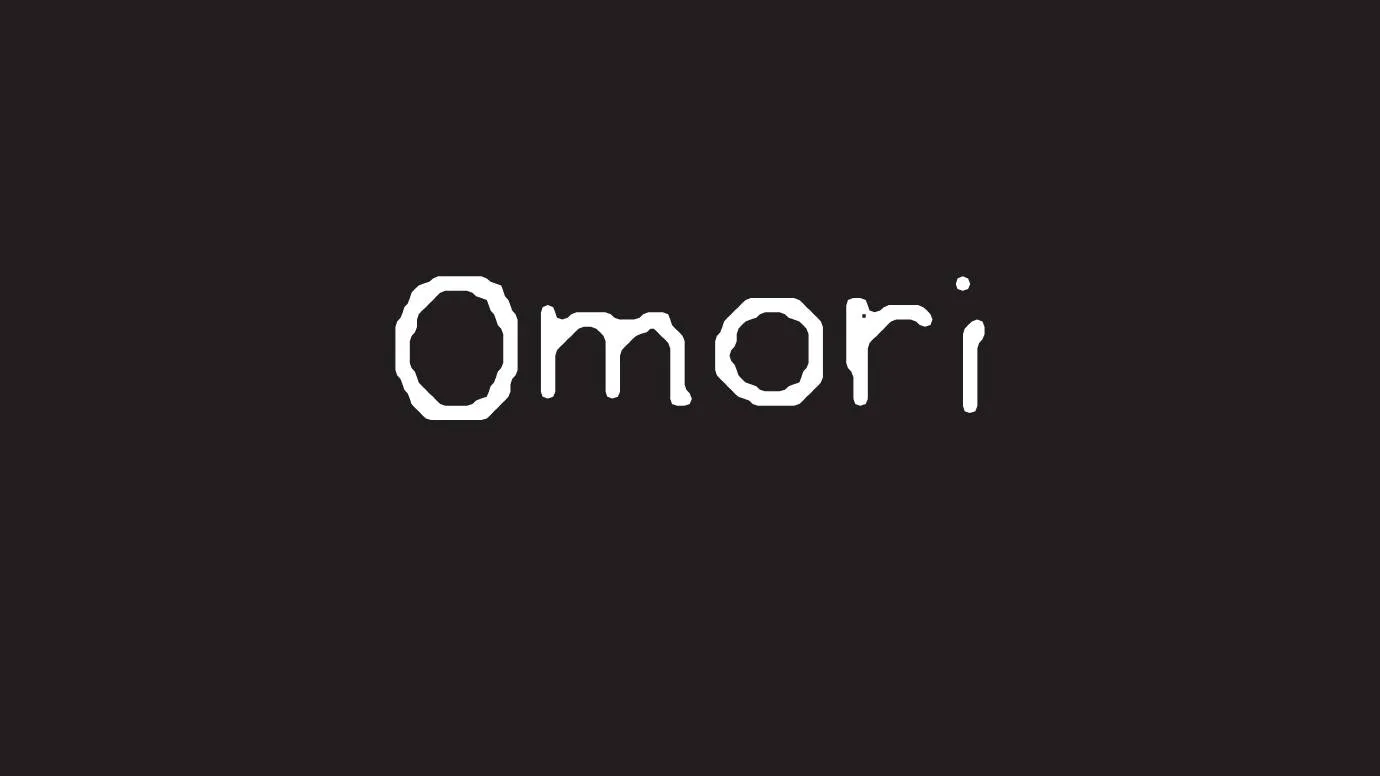
Omori Font Family is a very stylish and cohesive look typeface. This fantastic typeface lies in the category of the fancy family of fonts. The main and real manufacturer of this typeface was Omocat who is also a famous game developer.
Another similar font which is Fancy font looks like same as this typography. In order to convert simple designs to graphic ones select the generator tool of this typeface.
Omori Font